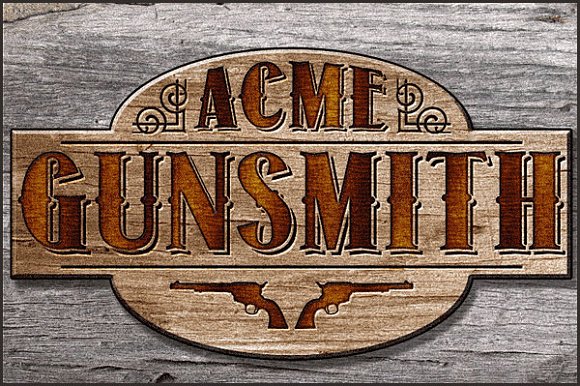
The 1873 Winchester Font: A Timeless Classic for the Modern Creative
I still remember the design project that led me to discover the 1873 Winchester Font. I was working on a branding campaign for a high-end mustache wax company, and I needed a font that would evoke a sense of nostalgia and ruggedness. After hours of scouring font libraries and searching online, I stumbled upon this old-time gem. It was love at first sight! ✨ The 1873 Winchester Font has since become a staple in my design toolkit, and I’m excited to share its awesomeness with you.
- 💯 The 1873 Winchester Font has a unique, rugged charm that’s perfect for creating gritty and dirty wanted posters, vintage-style logos, and high-end product branding.
- ✅ Its distressed texture and worn edges add a layer of authenticity to any design.
- 🎨 The font comes with a range of OpenType features, including stylistic alternates and glyphs, which give you plenty of creative freedom.
- 📚 It’s surprisingly versatile and can be used for both digital and print projects.
While the 1873 Winchester Font is an amazing addition to any design project, it’s not without its quirks. ⚠️ Some users have reported issues with kerning and spacing, particularly when using the font at smaller sizes. 🤔 Additionally, the font’s distressed texture can make it tricky to read when used for body text.
The 1873 Winchester Font was inspired by the classic typography of the American West. Its creator drew inspiration from vintage wanted posters, old saloon signs, and weathered tombstones. The result is a font that’s both nostalgic and timeless. 🌄
| Font Name | 1873 Winchester Font |
| Author | Tom Kolter |
| What is the 1873 Winchester Font best used for? | The 1873 Winchester Font is perfect for creating vintage-style logos, gritty wanted posters, and high-end product branding. |
| Is the 1873 Winchester Font suitable for body text? | While the font can be used for body text, its distressed texture and worn edges may make it tricky to read. It’s best used for headlines and titles. |
| Is the 1873 Winchester Font available in different weights or styles? | The 1873 Winchester Font comes in a range of styles and weights, including regular, bold, and italic. |